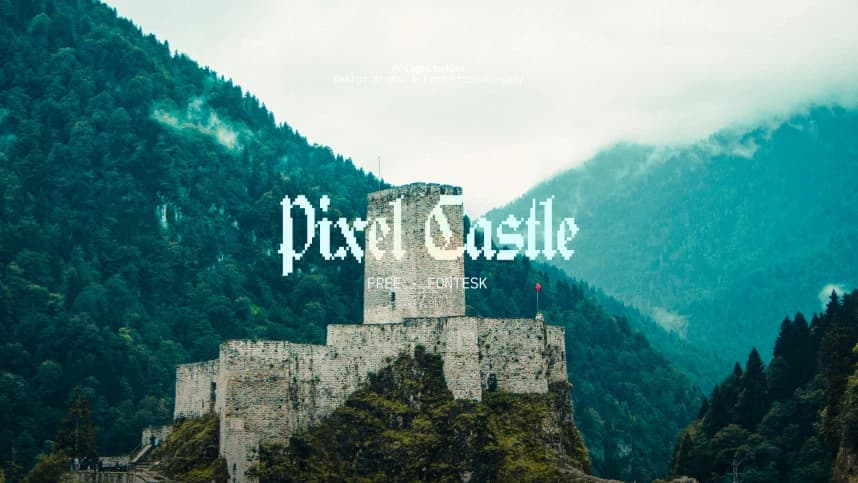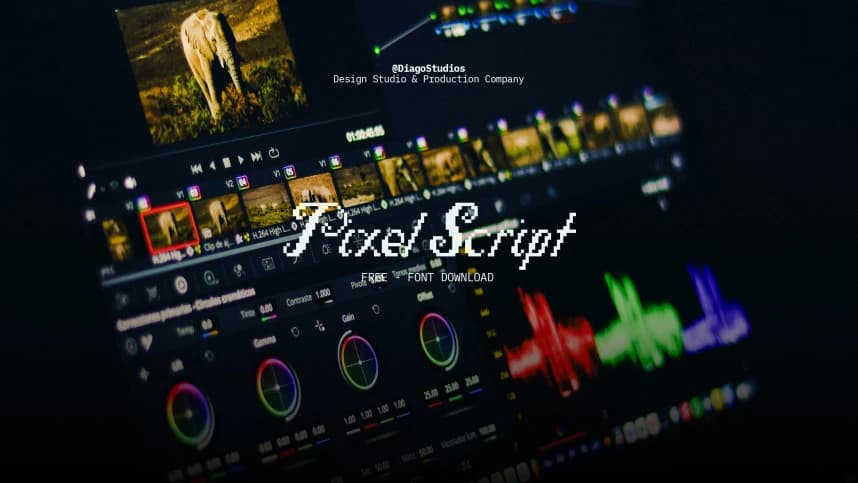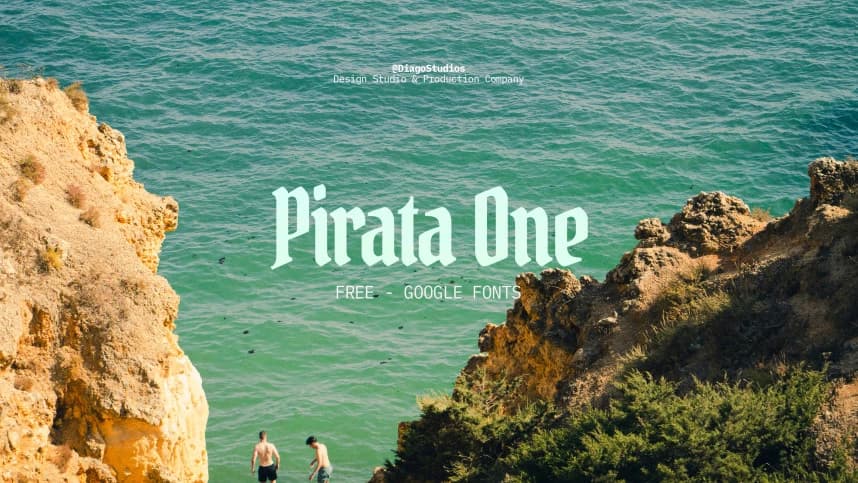
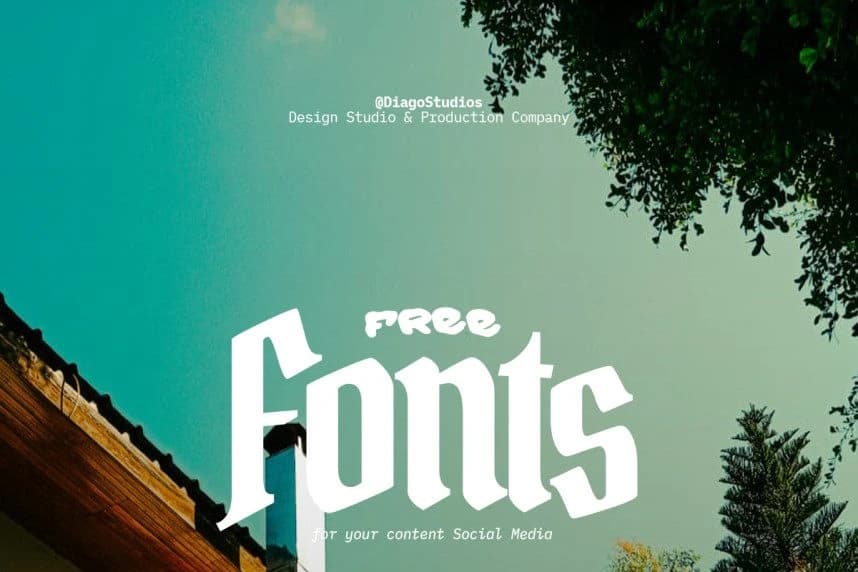
Free Font
Free font: Discover a curated set of 6 free fonts designed to bring personality and style to your projects without spending a dime. This pack includes versatile options like Pixel Castle, perfect for a retro gaming aesthetic; Felt Tip Roman, ideal for a casual and friendly tone; and Scary Club, with a bold, edgy character.